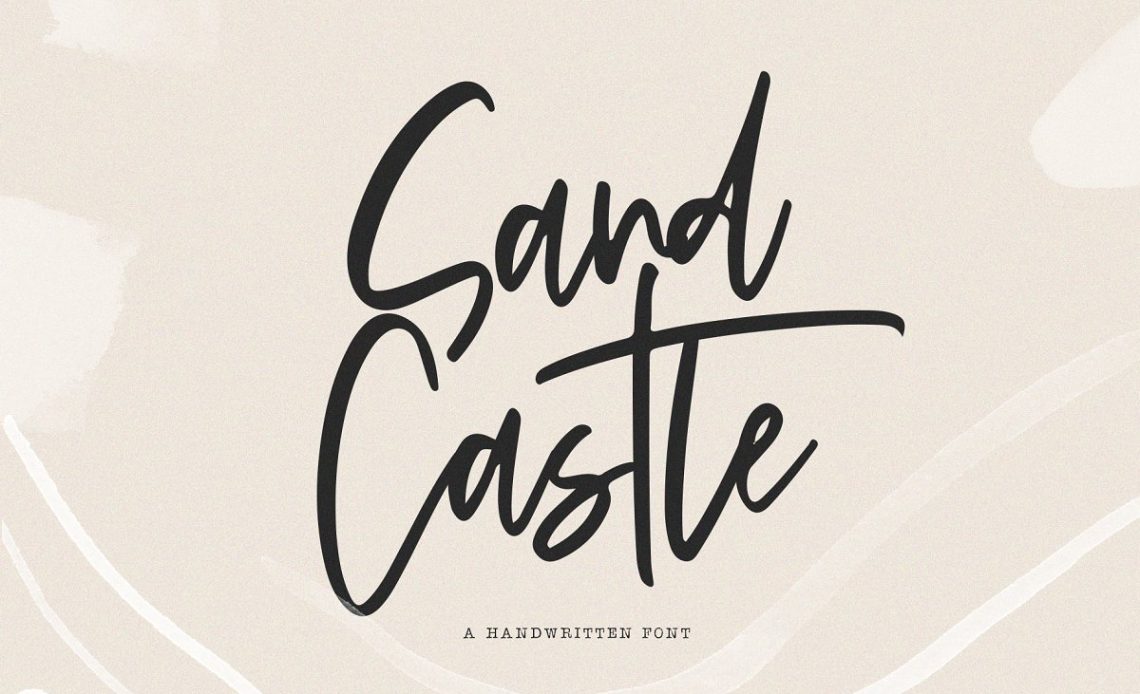
Introducing Sandcastle - Handwritten Script Font, a font that embodies chic elegance and modern charm. Created by the talented Kaitlynn Albani, this script font is the perfect choice for all your creative projects. Whether you're designing a stylish logo, crafting captivating headings, or curating a trendy blog, Sandcastle will elevate your work to new levels of sophistication.
With its unique handcrafted feel, Sandcastle instantly adds a touch of personality to any design. Its flowing strokes and delicate curves create a sense of effortless beauty that will captivate your audience. Imagine the impact this font will have on your brandings, invitations, and social media posts - it's sure to leave a lasting impression.
One of the standout features of Sandcastle is its extensive range of accent characters. These additional elements allow you to personalize your designs further, adding a touch of uniqueness and flair. Let your creativity run wild as you explore the versatility of this font, making each project truly one-of-a-kind.
Now, let's talk about why you should download Sandcastle. Apart from its undeniable aesthetic appeal, this font has the power to evoke emotions and create connections. Its handwritten style creates a sense of intimacy, making your audience feel like they're engaging with something authentic and heartfelt. By using Sandcastle, you'll establish a strong emotional bond with your viewers, leaving a lasting impact on their minds and hearts.
Don't settle for ordinary fonts that fade into the background. Embrace the extraordinary with Sandcastle - Handwritten Script Font. Unleash your creativity, captivate your audience, and make a statement that truly stands out. Elevate your designs with the elegance and charm of Sandcastle, and watch as your projects come to life.